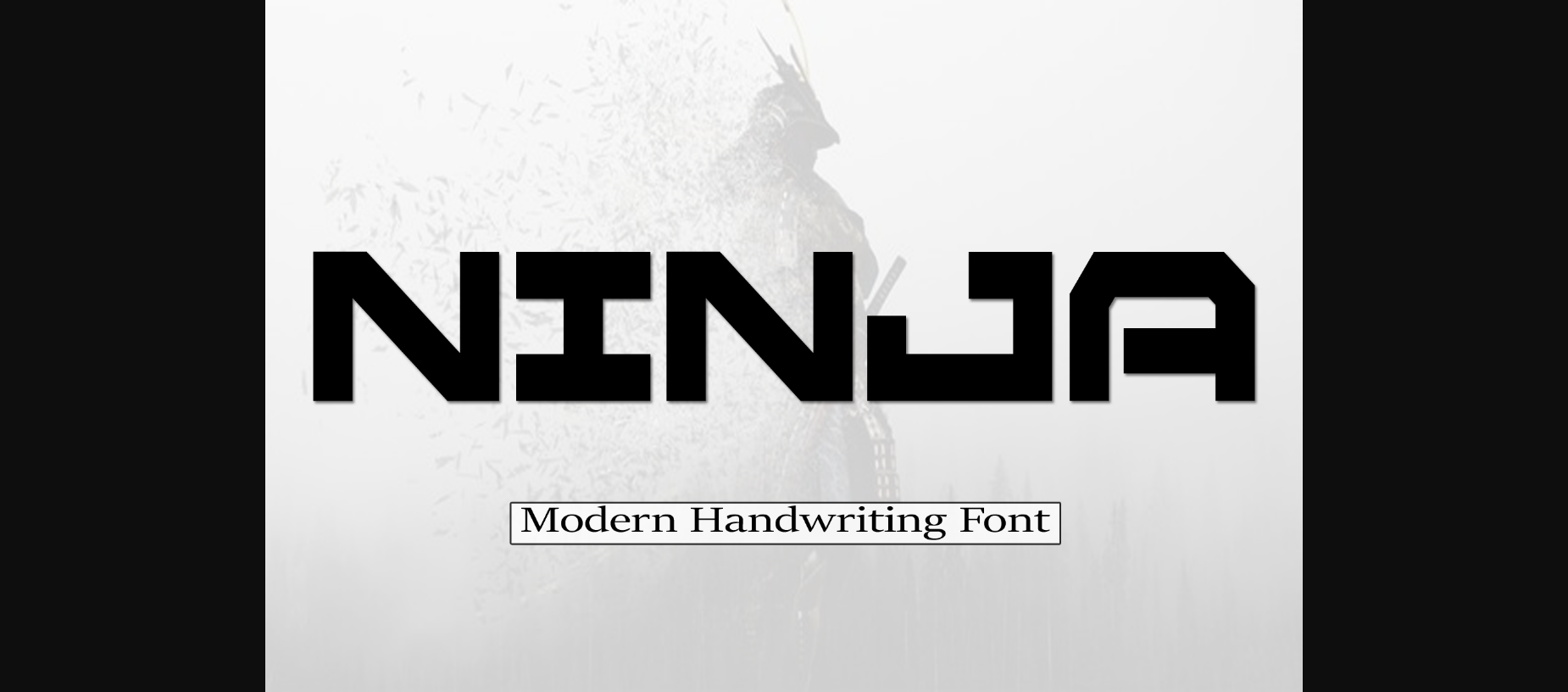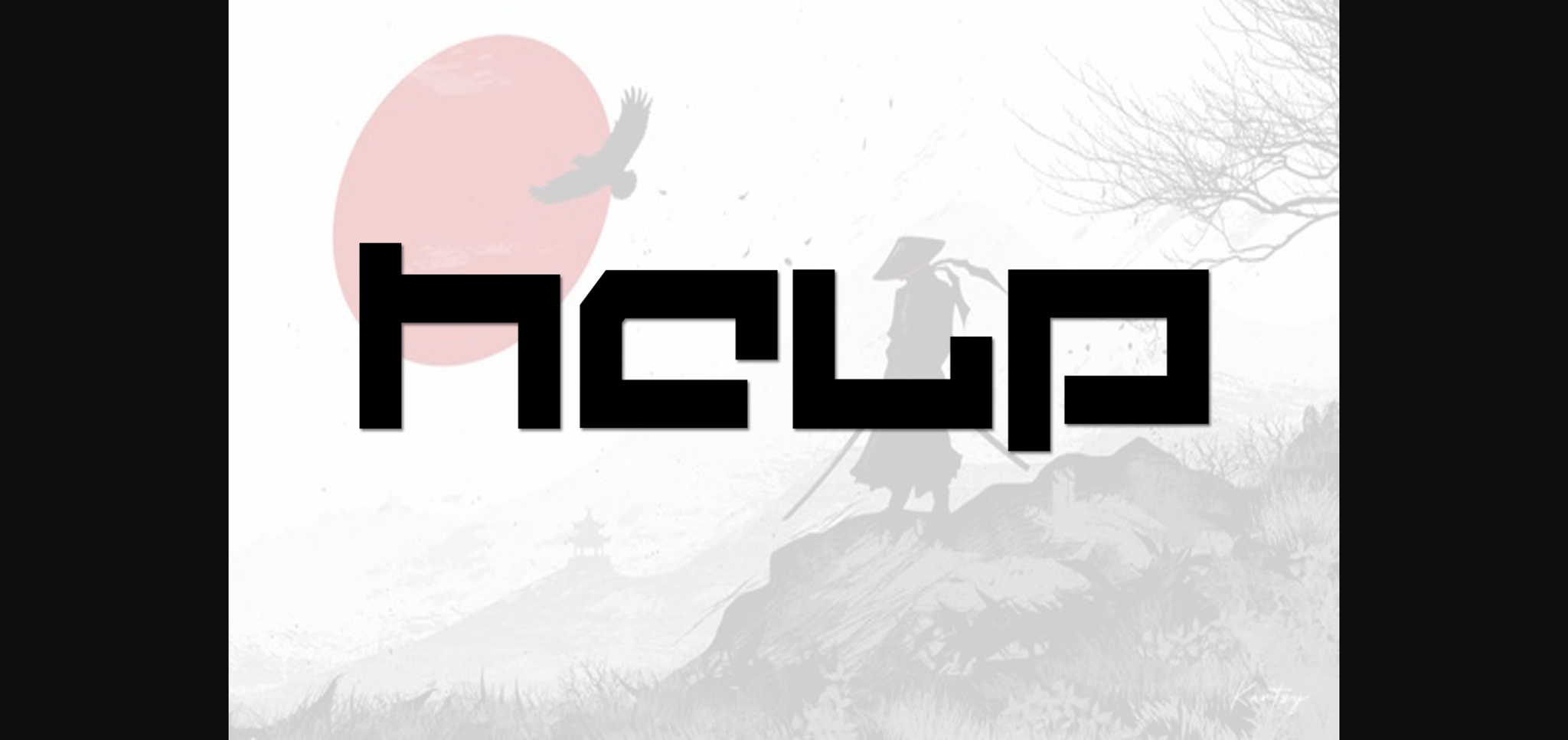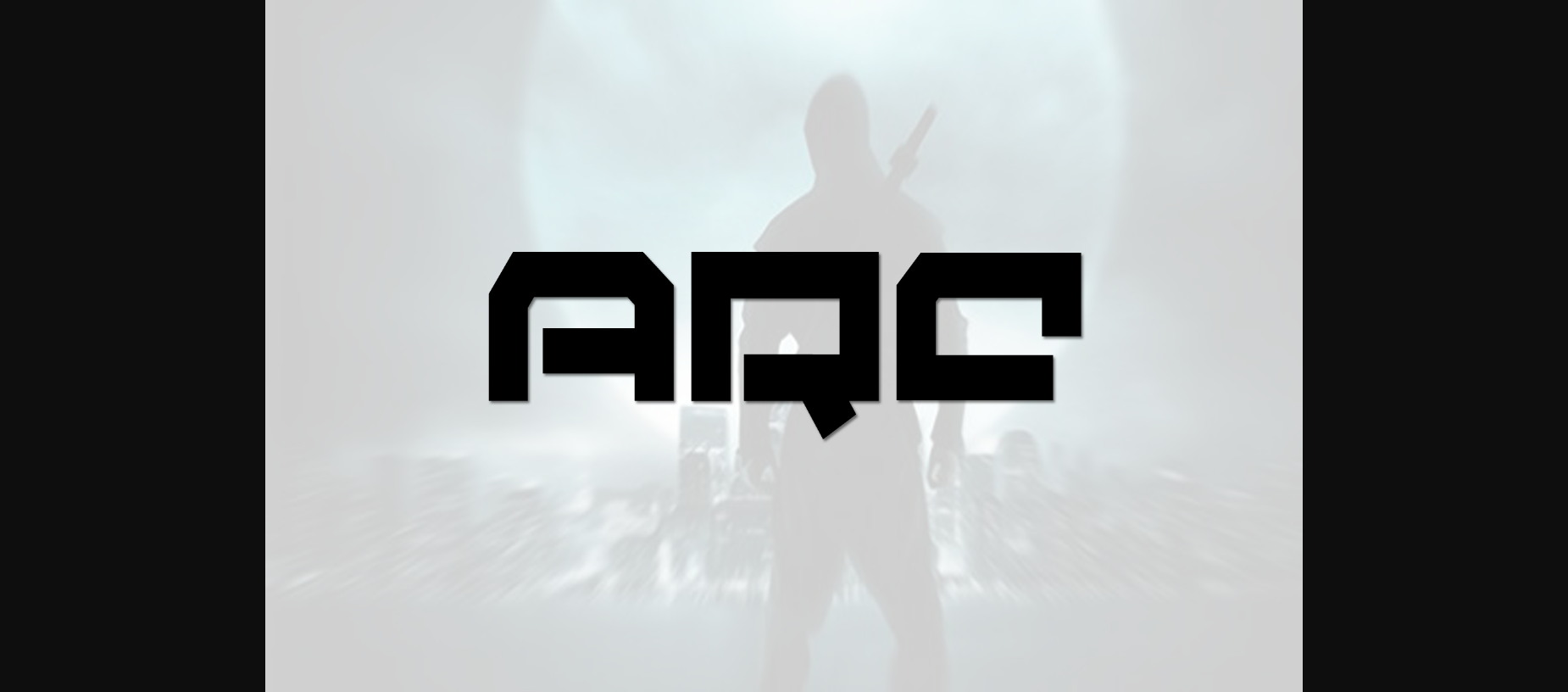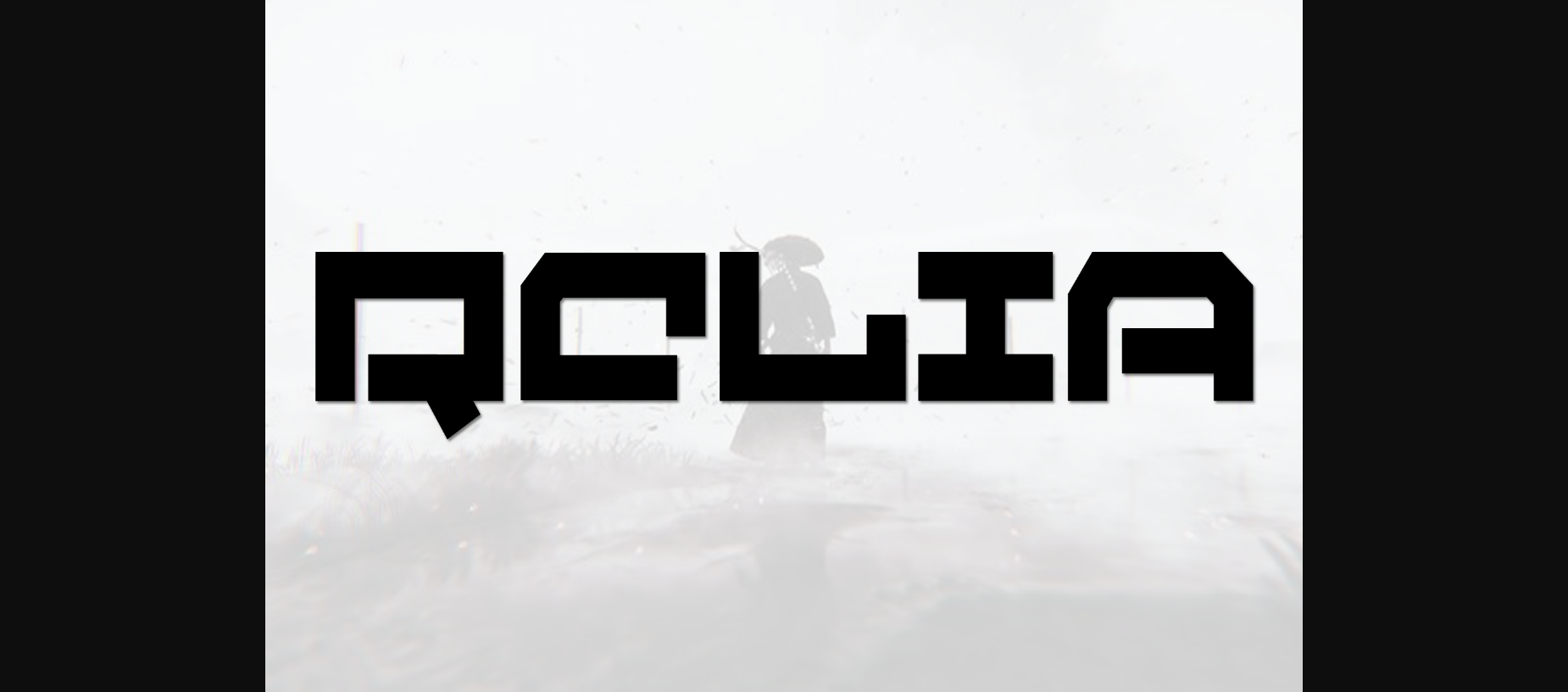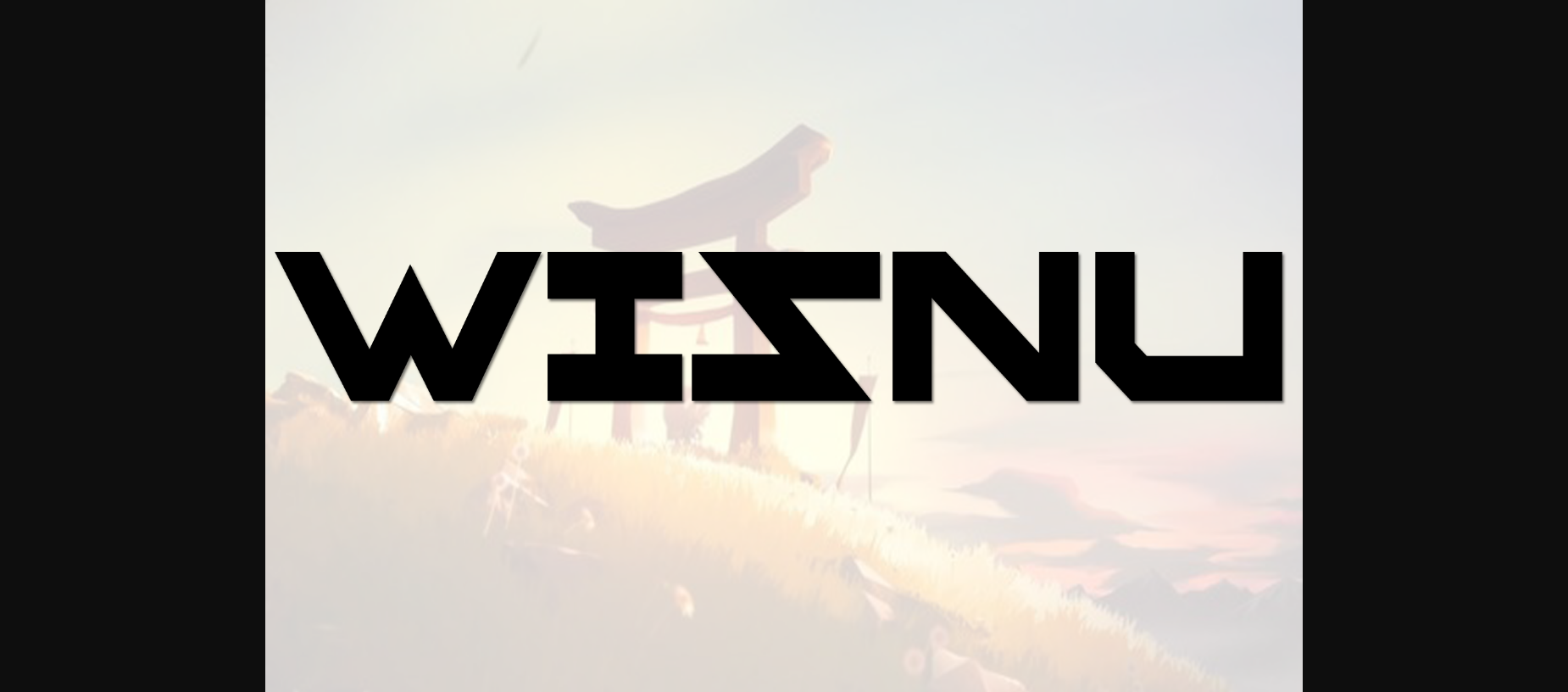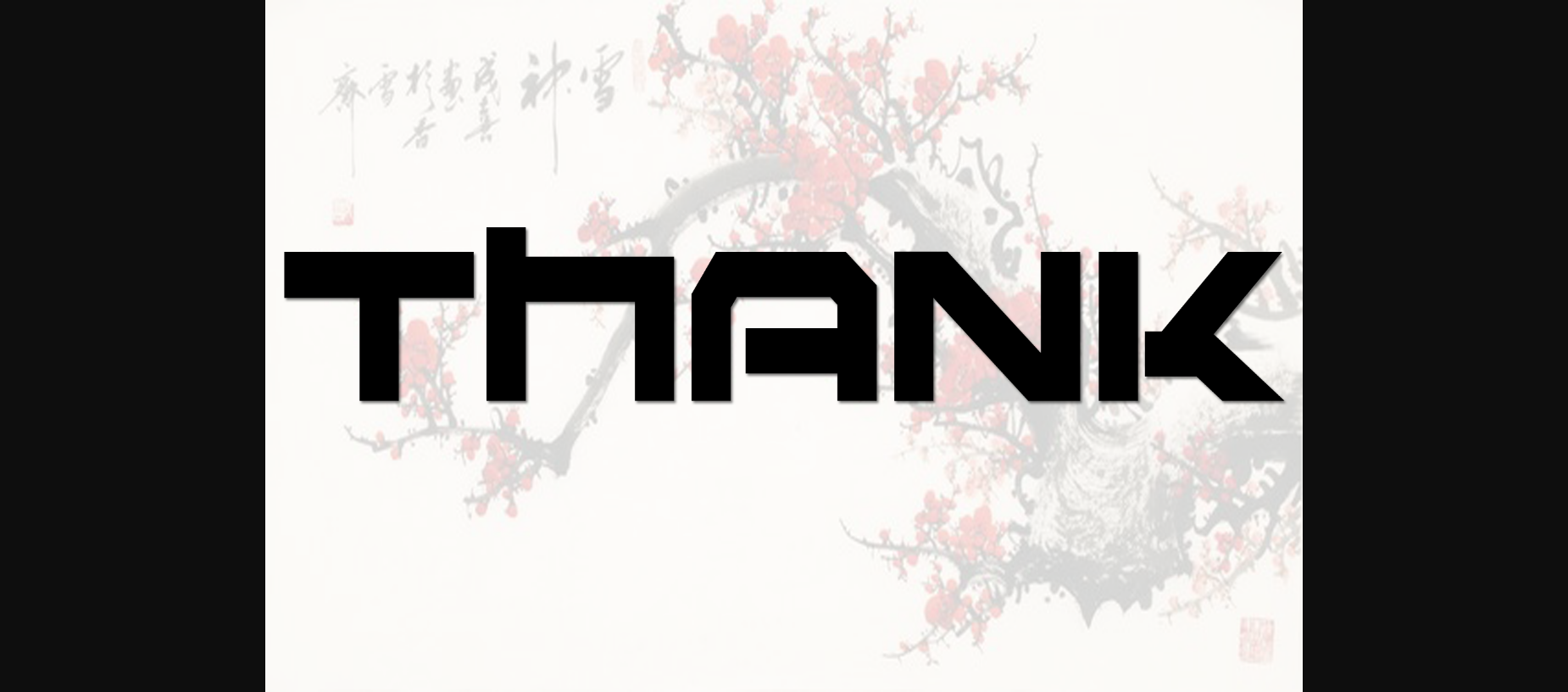
HomeSans Serif FontsNinja Font Sans Serif Fonts Ninja Font FacebookXPinterestWhatsApp 1 of 8 ... Ninja Font Poster 2... Ninja Font Poster 3... Ninja Font Poster 4... Ninja Font Poster 5... Ninja Font Poster 6... Ninja Font Poster 7... Ninja Font Poster 8... About Ninja Font Ninja is a stylish and very elegant sans serif font. It looks amazing on wedding invitations, thank you cards, quotes, greeting cards, logos, business cards and any other design that calls for a handwritten touch. DOWNLOAD NOW People also explored Diary Angelique Morning Lemonade Font Bareuksa Font Bancroft Font Angela Duo Font Yellow Hellow Font Chilly Font Malamondo Krobold Font 398 0 TagsNinjaNinja Font Previous articleDemon Hunter FontNext articleCongestion Font LEAVE A REPLY Cancel reply Comment: Please enter your comment! Name:* Please enter your name here Email:* You have entered an incorrect email address! Please enter your email address here Website: Save my name, email, and website in this browser for the next time I comment. Personal Use Free DoooLA Personal Use Free Read more about this font The Moshbusther Personal Use Free Read more about this font Gonestones Personal Use Free Read more about this font Nuku Nuku Personal Use Free Read more about this font BLOG Free vs Paid Fonts: Why Investing in Premium Fonts Is Worth It Free vs Paid Fonts: Why Premium Fonts Are Worth It in 2025 The debate of free vs paid fonts continues in the design world. While... How to Cut Any Font on Cricut: Convert a Font to SVG (Free) Free Fonts Risk: Why Free Fonts Can Be Dangerous for Designers Where to Buy American Fonts Online in 2024